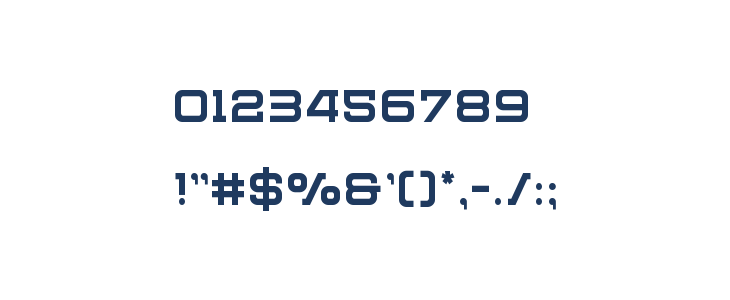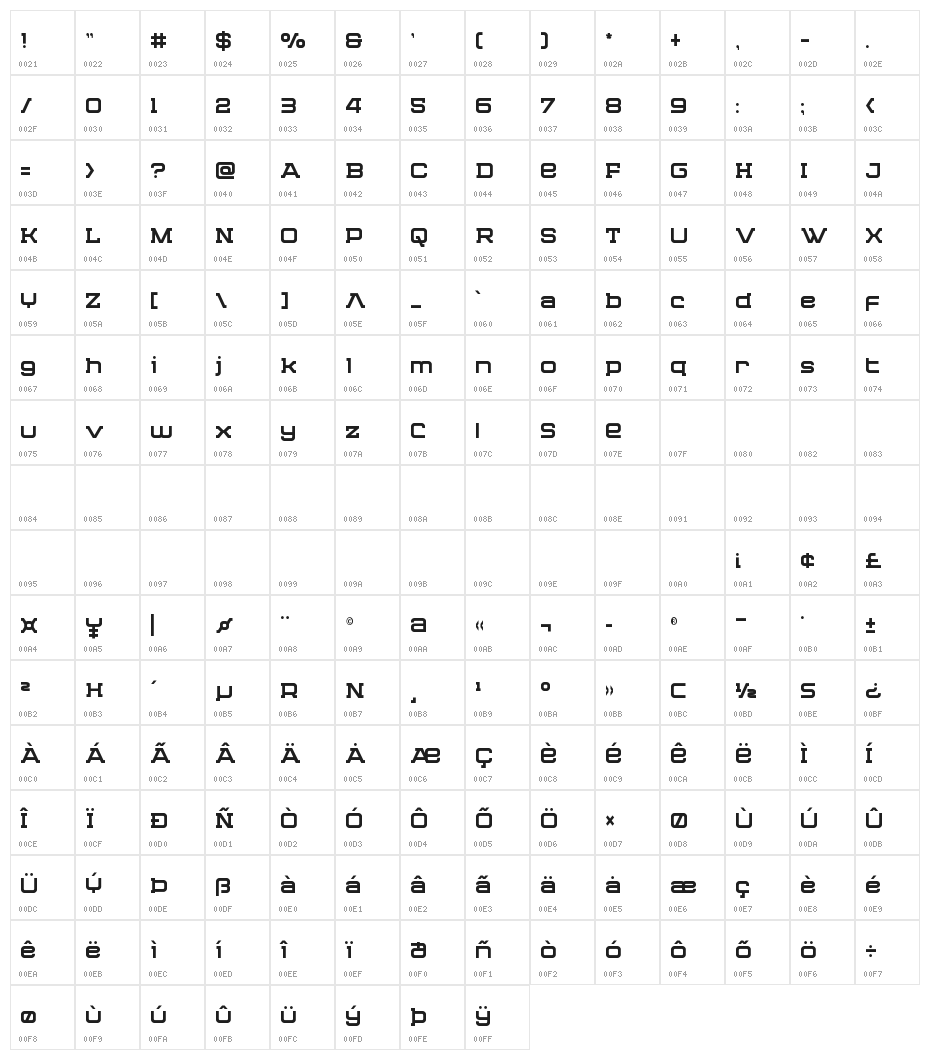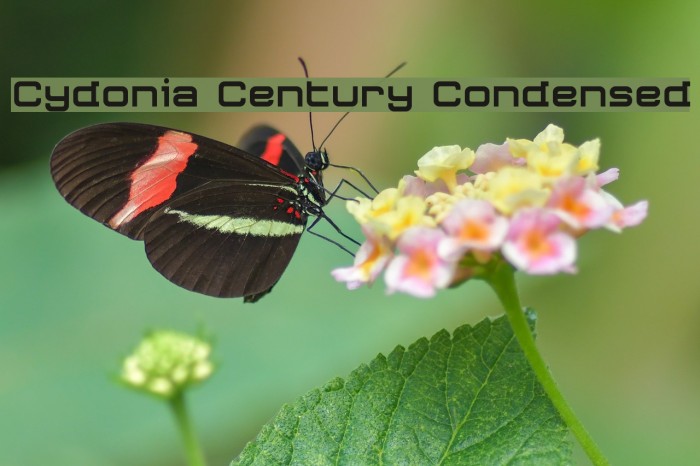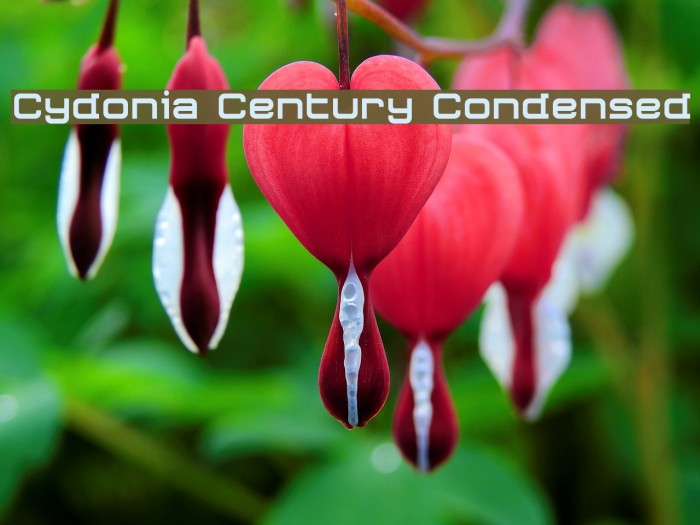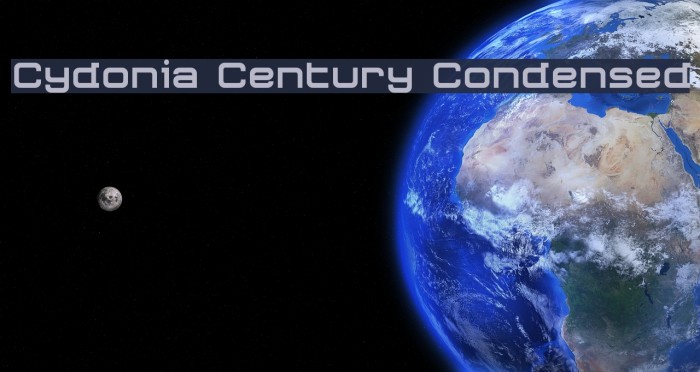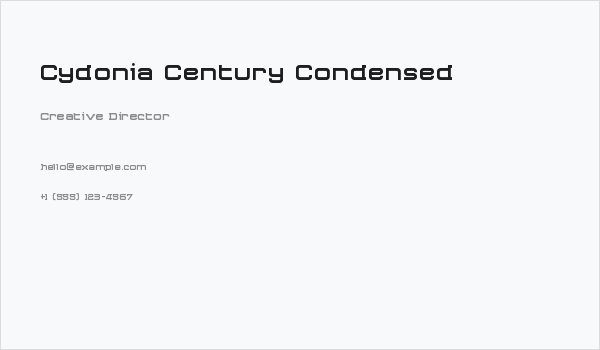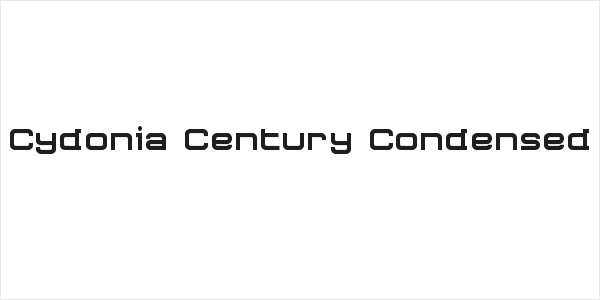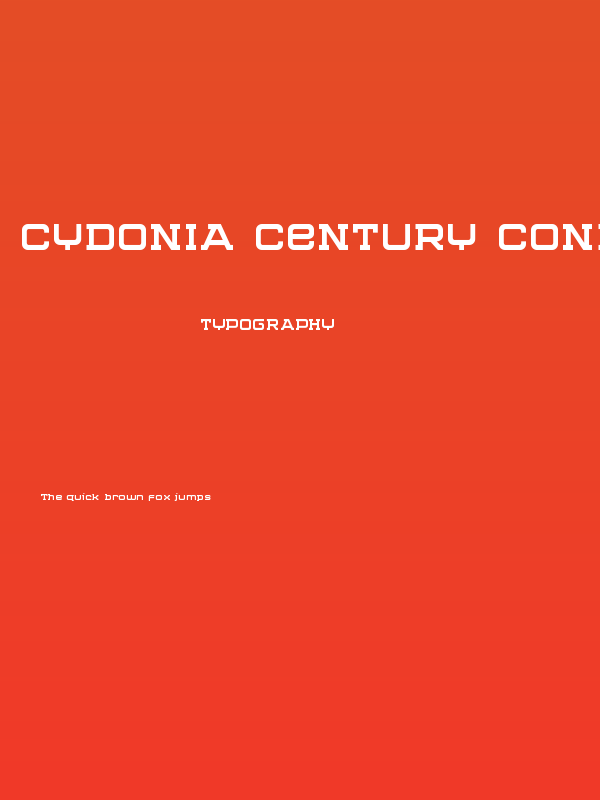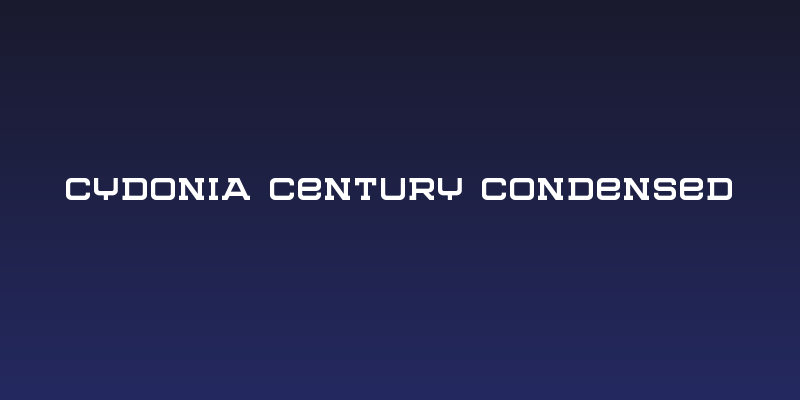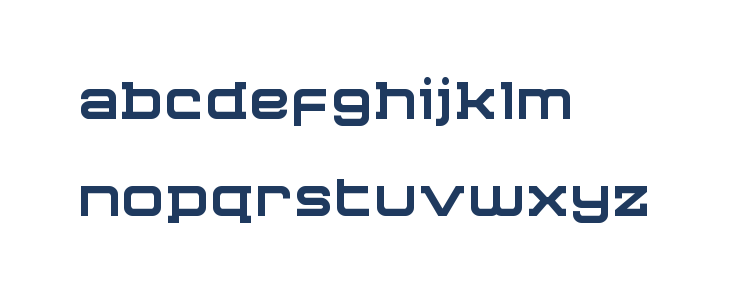
Cydonia Century Condensed Font
Cydonia Century Condensed Description
This font features a modern and geometric design with a condensed structure, providing a sleek and efficient use of space. The characters are bold and uniform, with consistent stroke widths that give it a clean and contemporary appearance. The uppercase letters are particularly striking, with sharp angles and a strong presence. The lowercase letters maintain the same geometric style, ensuring readability and cohesion across different text sizes. Numbers and special characters are designed with the same attention to detail, making them easily distinguishable and visually appealing.